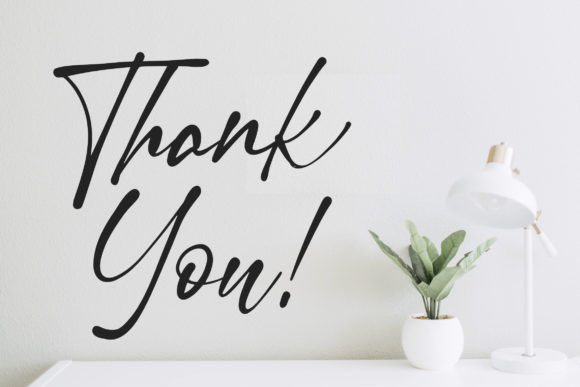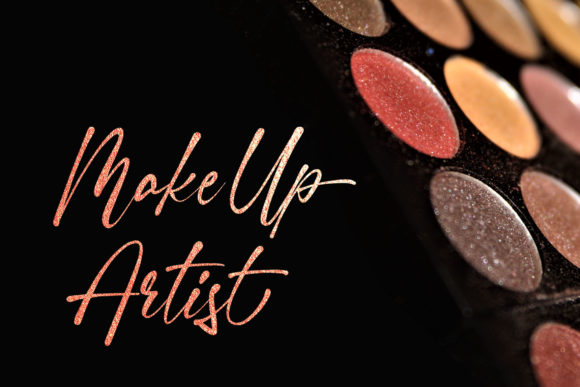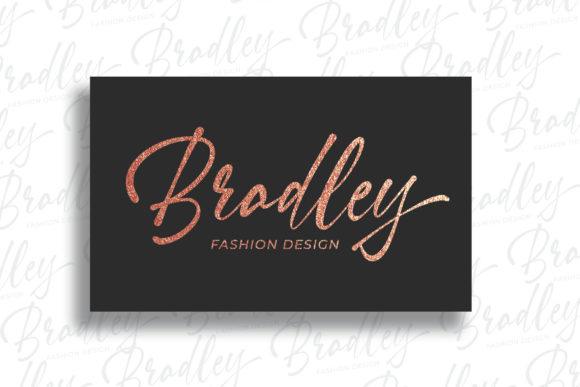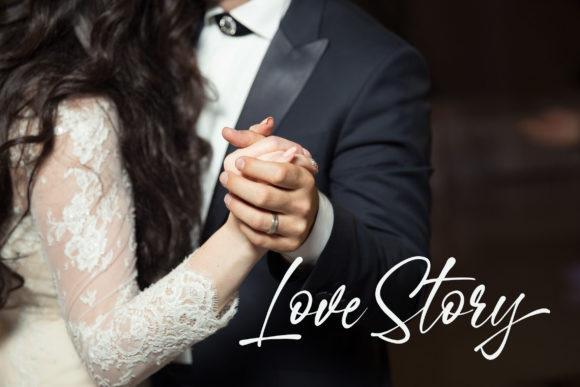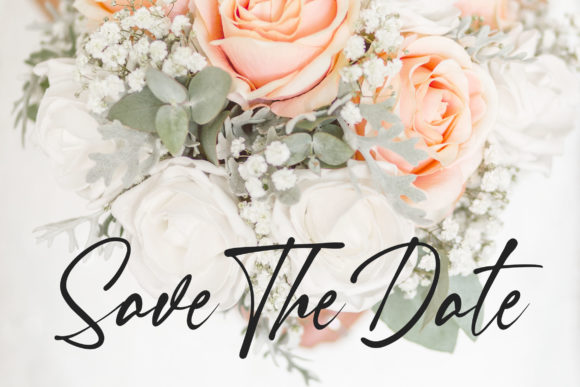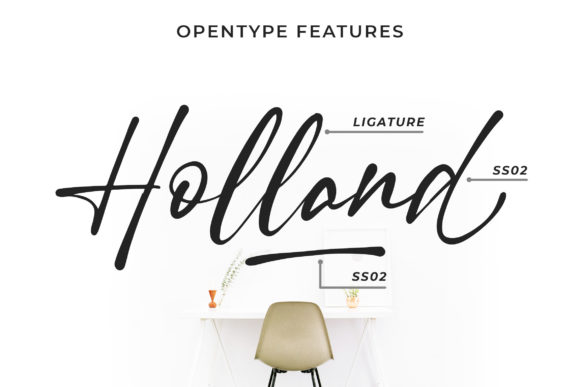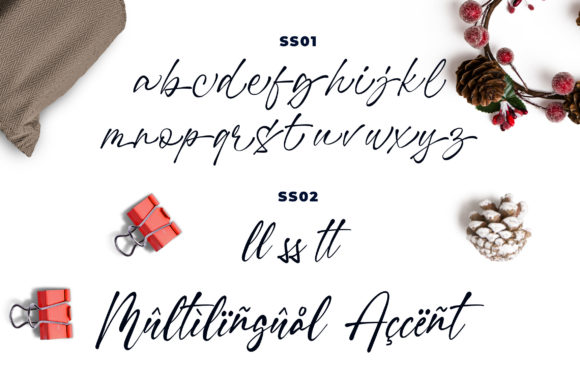
Heatting Font
About Heatting Font
Heatting is a modern and strong handwritten font that’s perfect for delivering any message in a straightforward and fashionable way.